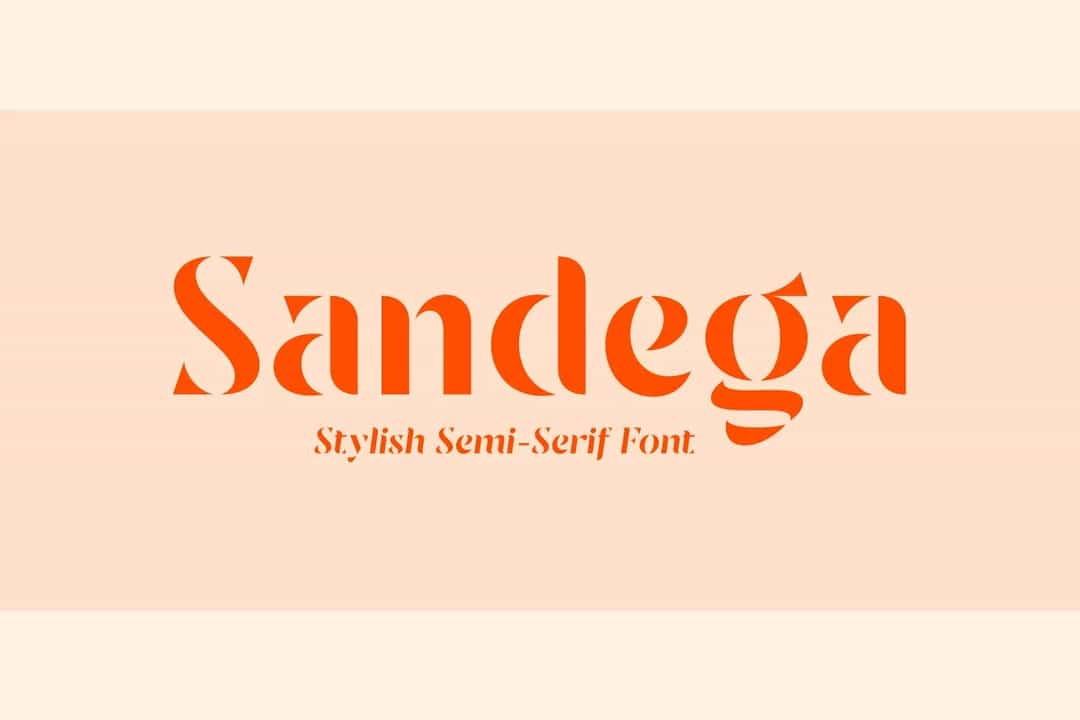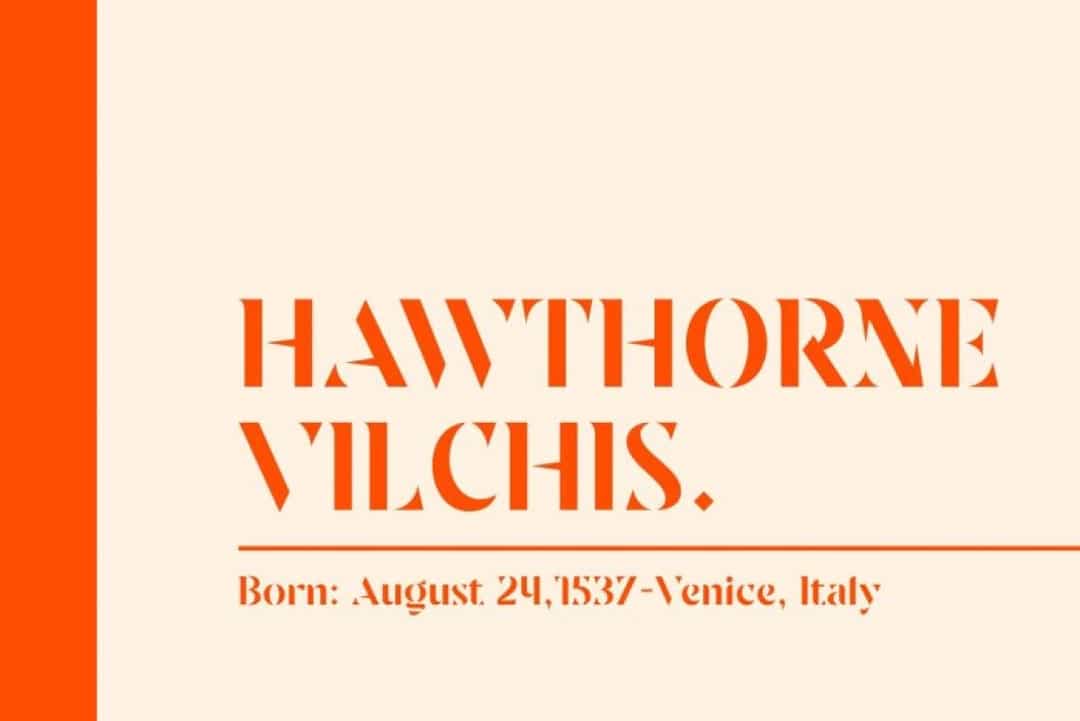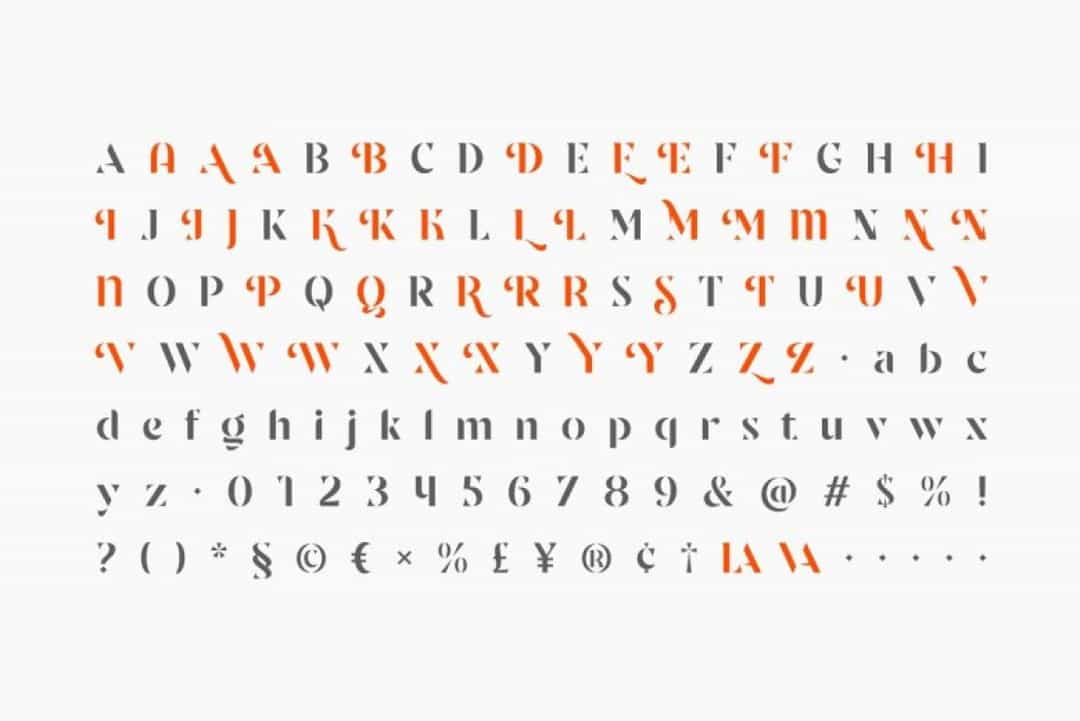
Sandega offers an intriguing experiment in which serif and sans-serif styles are mixed to form its unique look, making a unique font with individual characteristics yet still legibility. Opentype features such as stylistic sets can help to further customize each letter for greater creative control.